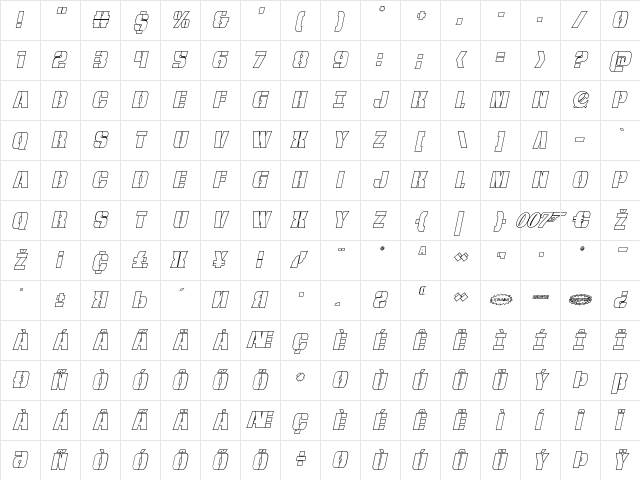
From BOND With Love Outline Italic Italic
Design Context for From BOND With Love Outline Italic Typeface
From BOND With Love Outline Italic brings ornamental detail and strong personality to headlines and identities, where visual impact matters more than quiet functionality. The slanted form adds forward momentum and visual energy.
Font Pairing: Pair with a clean neutral sans-serif for body copy to let From BOND With Love Outline Italic's character lead without overwhelming the composition.
Pro Tip: Use From BOND With Love Outline Italic exclusively at display sizes — it was designed to be seen, not read at length. Let a neutral companion handle body copy.